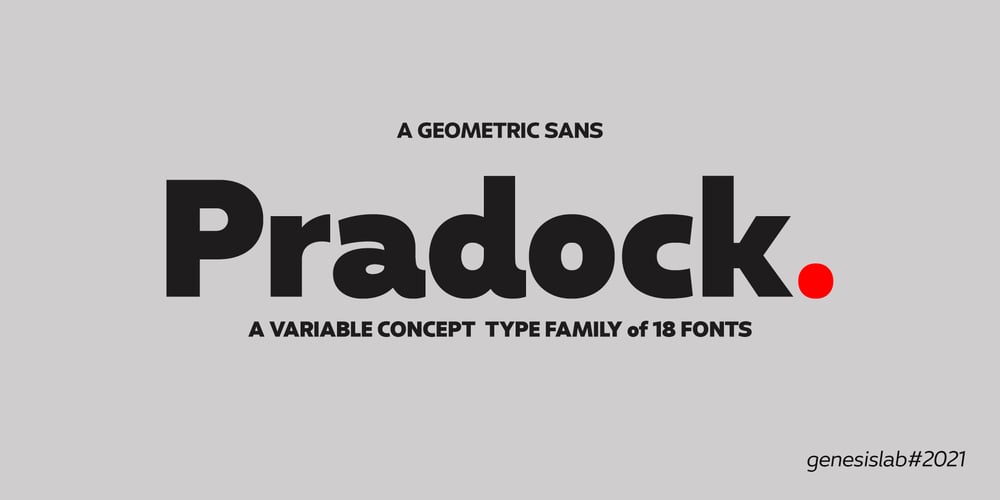
Pradock Sans Font Family was designed by Bustami Harun and published by Genesislab. Pradock Sans contains 19 styles and family package options. Pradock The newest geometric Sans-Serif font for a family is easy to use almost anywhere on your website, be it in the header or as smaller text with the Variable concept. A font with a bold aesthetic that is energetic and youthful, this is an excellent choice for the millennial demographic – which is why it is so well suited to use by digital and creative agencies. – 18 Font +1 Variable Fonts Family, Opentype Feature – Free updates and added features – Multilingual support for various languages including: French, Spanish, Swedish, German, Italian, Portuguese, Dutch, and more …Software support (Adobe, MS Word, Pages, etc.). if you want to take advantage of additional OpenType features and style alternatives, use OpenType-savvy software (such as Adobe applications etc.).